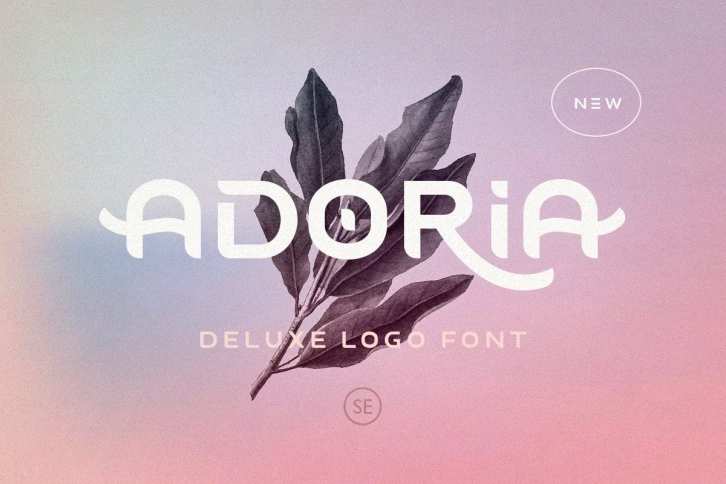
Adoria is a cool, beautiful and distinct display font. This font is PUA encoded which means you can access all of the glyphs and swashes with ease!Â
Fall in love with its incredibly versatile style and use it to create spectacular designs!